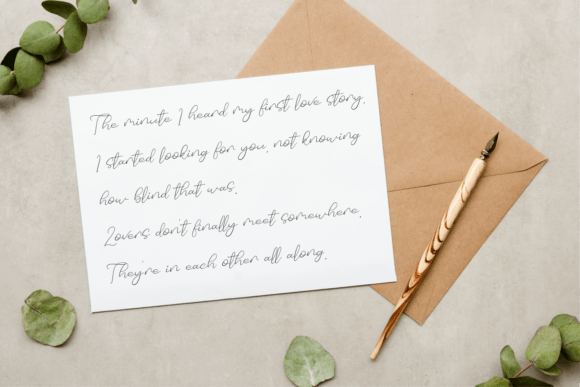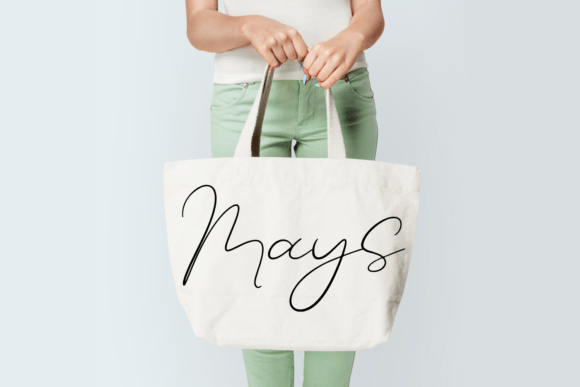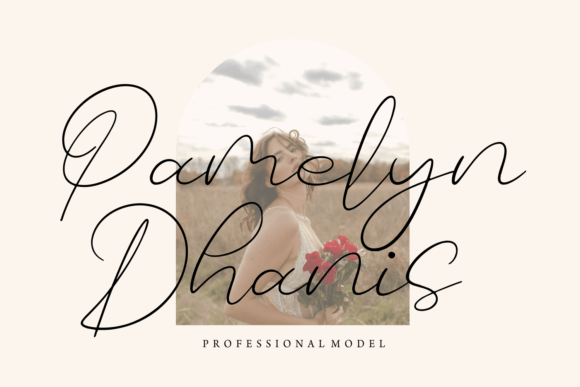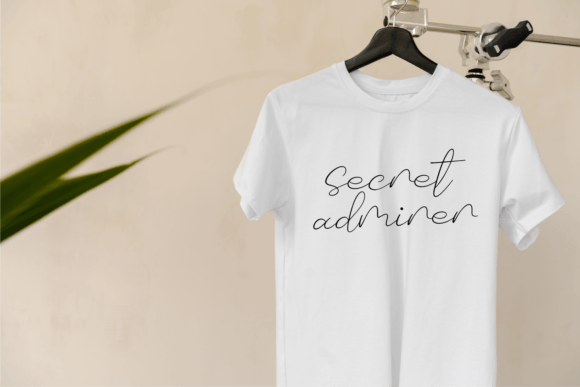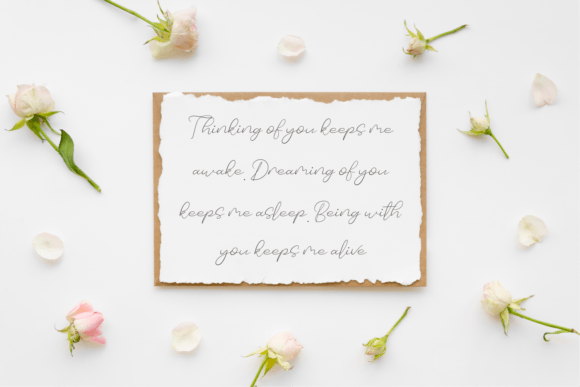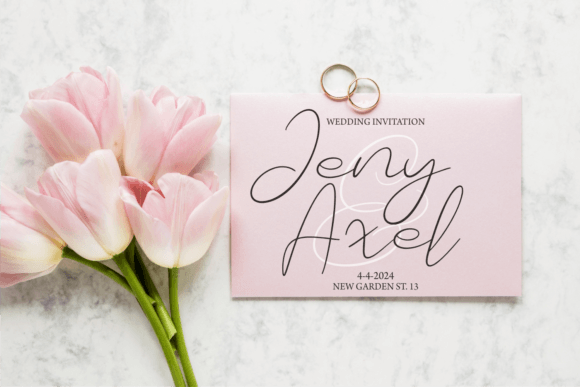
Introduction to Basic Romantic Font
Basic Romantic is a beautiful and versatile handwritten font perfect for styling save the dates, wedding invitation suites, and other wedding materials like place cards or favors.
This font features a modern yet classic style and is also smooth- perfect for cut machines like Cricut and Silhouette This font is curated for designers and crafters that enjoy making sophisticated projects with a modern contemporary feel.
Basic Romantic Font offers exceptional quality and versatility, making it a valuable addition to your design toolkit. Whether you’re creating for personal projects or commercial use, Basic Romantic Font delivers professional results.